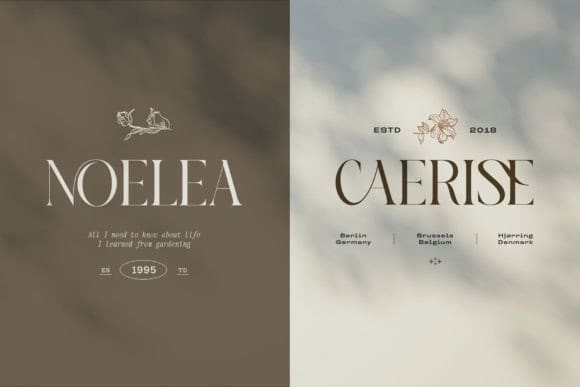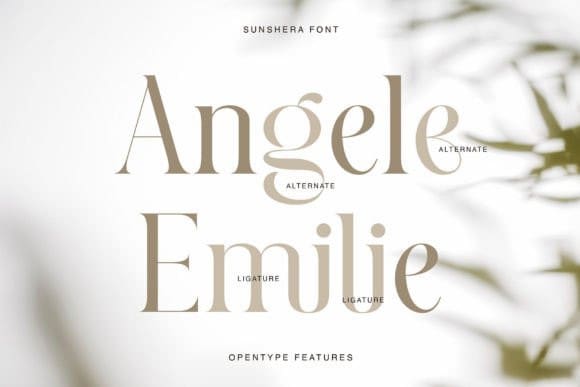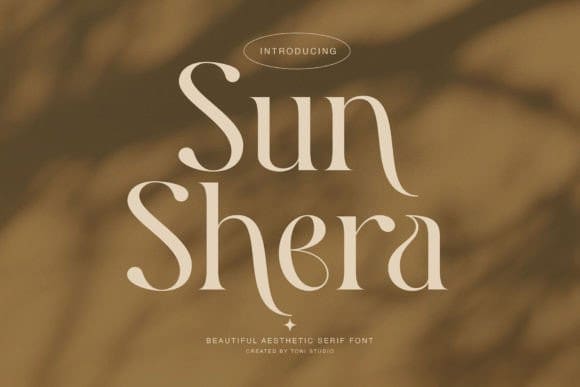
Sunshera Font
Sunshera Font, a font that embodies the essence of aesthetic aesthetics. Perfect for branding projects, Sunshera combines classic charm with modern sophistication. Its sleek, smooth lines, and balanced curves, create a harmonious look that’s ideal for high-end fashion, products beauty, and luxury branding. Sunshera Font is designed to make a statement with its clean, vibrant character, adding a touch of elegance to logos, packaging, or editorial designs.
A top choice for branding brilliance, this elegant font enhances visual identity with its stylish and dynamic design. Sunshera showcases chic moments, ideal for magazines, fashion blogs, and trend websites, bringing a touch of glamor to every design. With its dynamic aesthetic and versatile style, Sunshera captivates audiences with its beauty and elegant appearance for a minimalist yet sophisticated look that brings timeless beauty and fashionable appeal to a variety of branding materials.
This font balances and ensures your projects stand out with stylish poise. Let Sunshera Font print your designs with its radiant beauty, making it the perfect choice for high-end branding and luxury products, shining with sophistication and class.